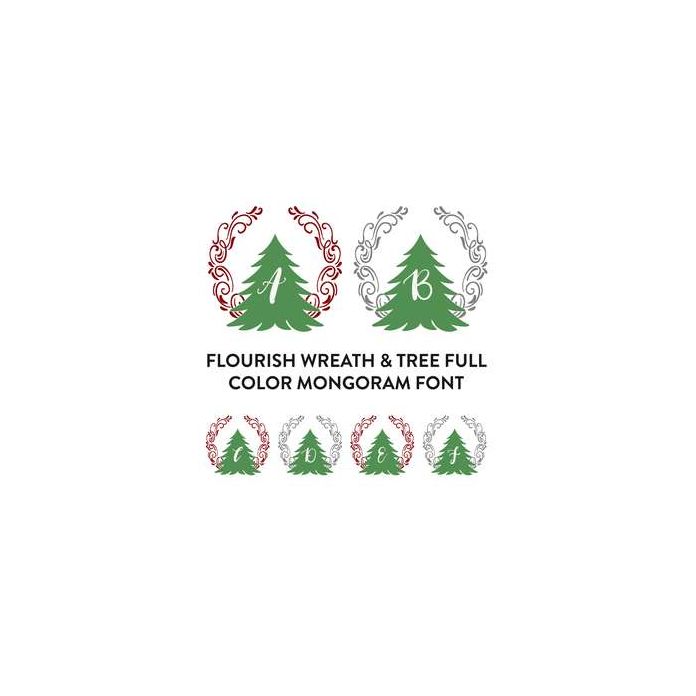
flourish wreath and tree full color monogram font
This full color monogram font comes with hand drawn uppercase letters and two color versions of the flourish wreath.